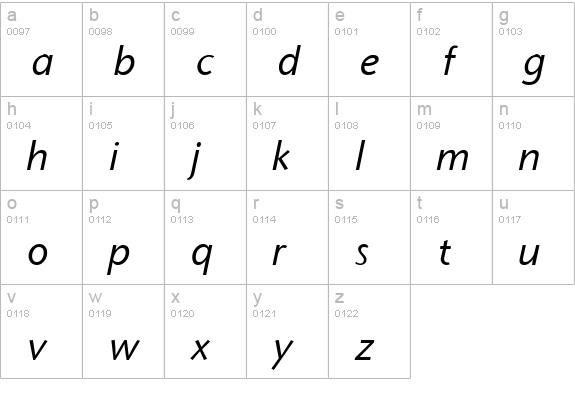
StoneSans Italic Font Details
StoneSans Italic is a distinctive, italic variant in the StoneSans typeface family \xE2\x80\x94 well suited to design and typography projects.
StoneSans Italic is a modern and elegant font style that adds a touch of sophistication to any design project. The sleek and slanted letterforms create a sense of movement and dynamic energy, making it perfect for adding emphasis or creating a unique visual identity. This typeface is versatile and can be used for a wide range of design applications, from branding and packaging to editorial and web design. Its clean lines and subtle curves give it a timeless appeal that will stand the test of time. Best of all, StoneSans Italic is available for free download at FontsMarket.com, making it easily accessible to designers and creatives looking to elevate their projects with a touch of class and style. Whether you're working on a personal project or a client commission, this font is sure to make a lasting impression.